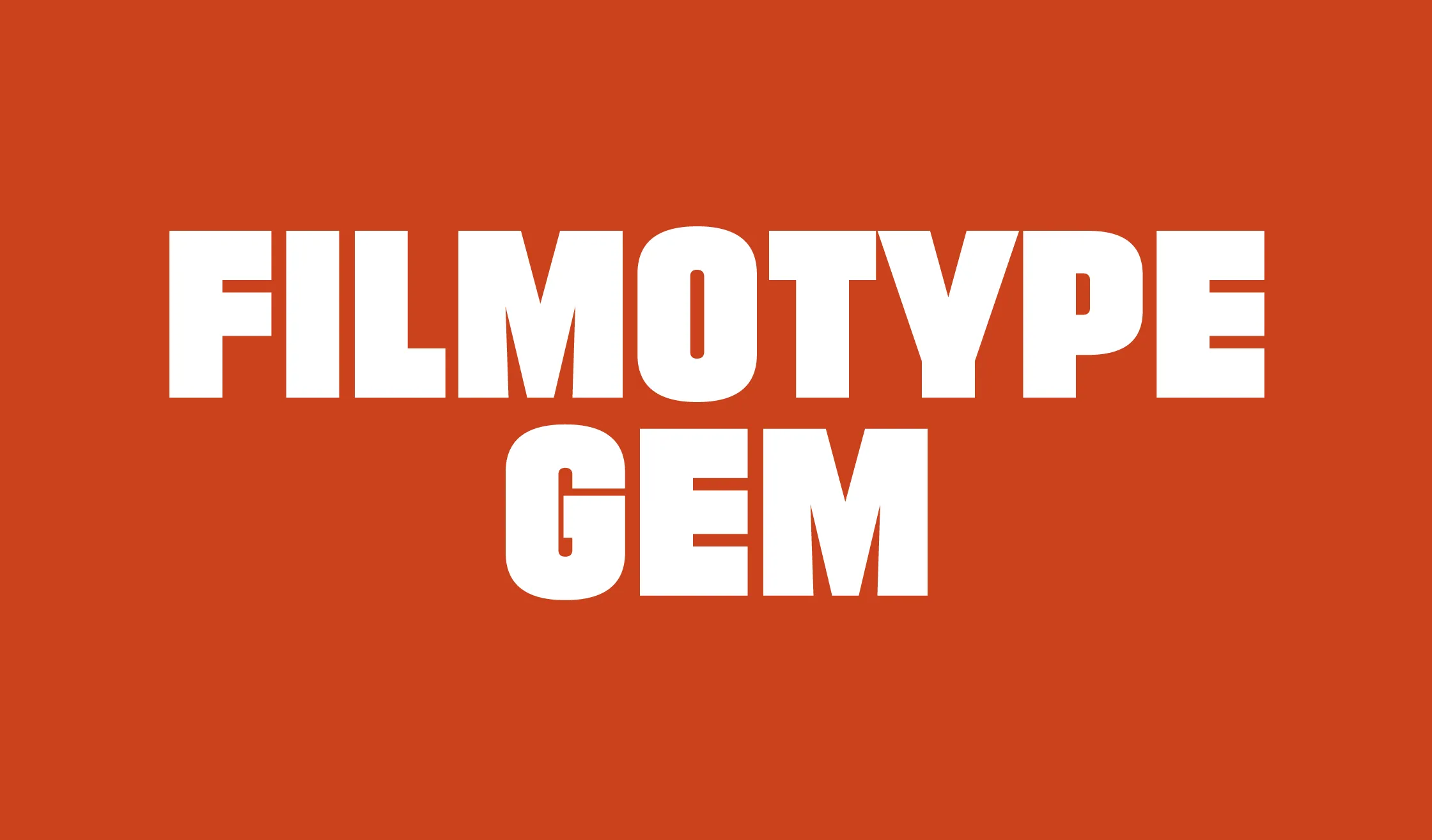
Filmotype Gem Font
The Filmotype Gem Font is perfect for precious vintage jewelry advertising, sparkling retro luxury campaigns, elegant mid-century branding, sophisticated 1950s packaging, refined vintage signage, classic luxury communications, prestigious period designs, authentic gem-quality graphics, distinguished retro elegance projects, and treasured vintage commercial materials.
What makes the Filmotype Gem Font so exciting is its exquisite embodiment of mid-century luxury with precious Filmotype craftsmanship that creates an unmistakable gem-quality typeface perfect for brands seeking to communicate elegance, value, and authentic vintage sophistication. This precious typeface features refined Filmotype construction, gem-inspired character proportions, and luxurious mid-century design elements that perfectly capture the essence of vintage luxury culture and classic commercial elegance. The font's gem personality and Filmotype preciousness make it an exceptional choice for luxury brands, jewelry companies, and sophisticated projects seeking to communicate quality, refinement, and authentic mid-century luxury with genuine period elegance.
The Filmotype Gem Font family includes precious variations and elegant alternates, featuring refined Filmotype weights, gem-quality character options, and mid-century luxury styling elements. Each variation maintains the signature precious appeal while offering different levels of elegant expression and Filmotype sophistication, giving designers extensive creative possibilities for crafting luxurious vintage communications and distinguished brand personalities that honor mid-century luxury and precious traditions.
The refined vintage characteristics of Filmotype Gem Font showcase masterful precious typography preservation, with each letter featuring genuine Filmotype construction elements and gem-quality design details that enhance its luxury credibility and vintage authenticity. The font's comprehensive character set includes uppercase and lowercase letters, numerals, precious punctuation, and gem symbols, ensuring complete functionality for diverse luxury projects and international vintage elegance applications.
Expertly crafted for both digital and print luxury applications, this precious font maintains its Filmotype character and gem elegance across all sizes and formats. From large-scale luxury displays to detailed precious vintage designs, Filmotype Gem Font performs exceptionally while preserving its distinctive refined personality and authentic mid-century gem appeal.